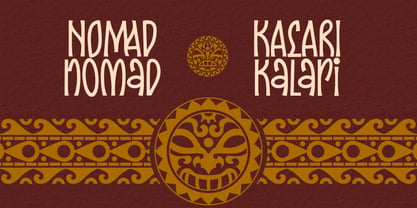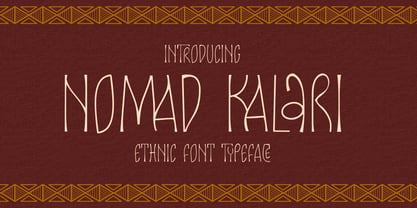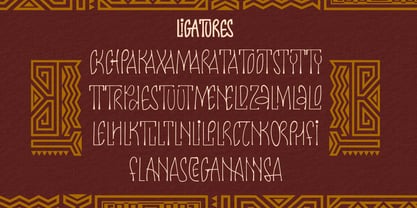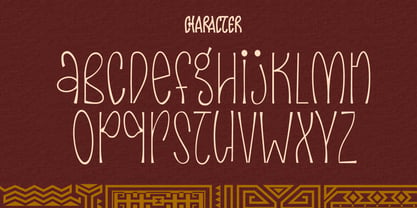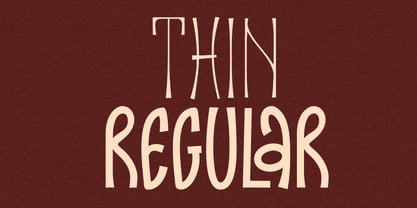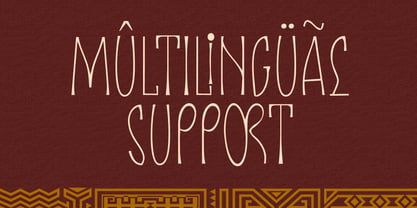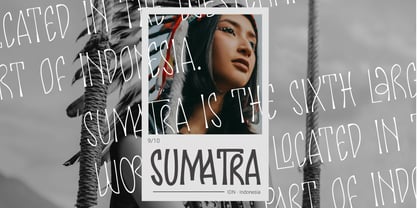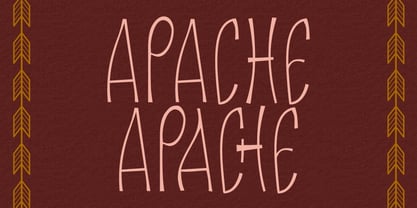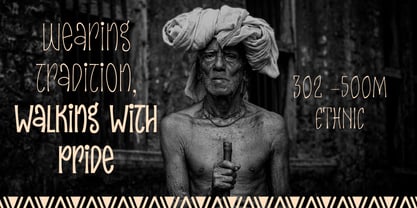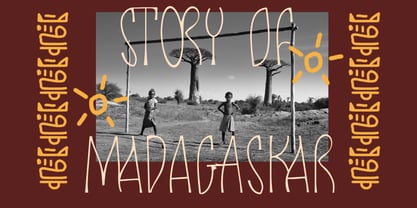
Nomad Kalari
The Nomad Kalari Font Family was designed by Hermansyah and published by Get Studio. Nomad Kalari contains 2 styles and family package options. More about this family
Nomad Kalari is a distinctive ethnic display font that captures the spirit of tradition, culture, and handcrafted artistry. Its elongated, irregular shapes and slightly imperfect strokes evoke a raw, human touch—perfect for projects that seek authenticity and character. Designed with a balance between minimalism and expression, Nomad Kalari stands out in headlines, posters, branding, and editorial layouts. Whether you're working on travel themes, cultural projects, or artistic compositions, this typeface delivers a unique visual voice. The family comes with 2 styles: Thin and Regular, giving you flexibility to create contrast and hierarchy while maintaining a cohesive look.